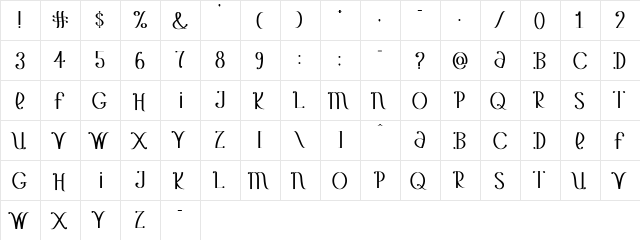
Chiquita Banana Regular
| Foundry | Janet Cordahi |
| Designer | Janet Cordahi |
Design Context for Chiquita Banana Typeface
Chiquita Banana is a composed and adaptable typeface that performs quietly and consistently across a wide range of design contexts.